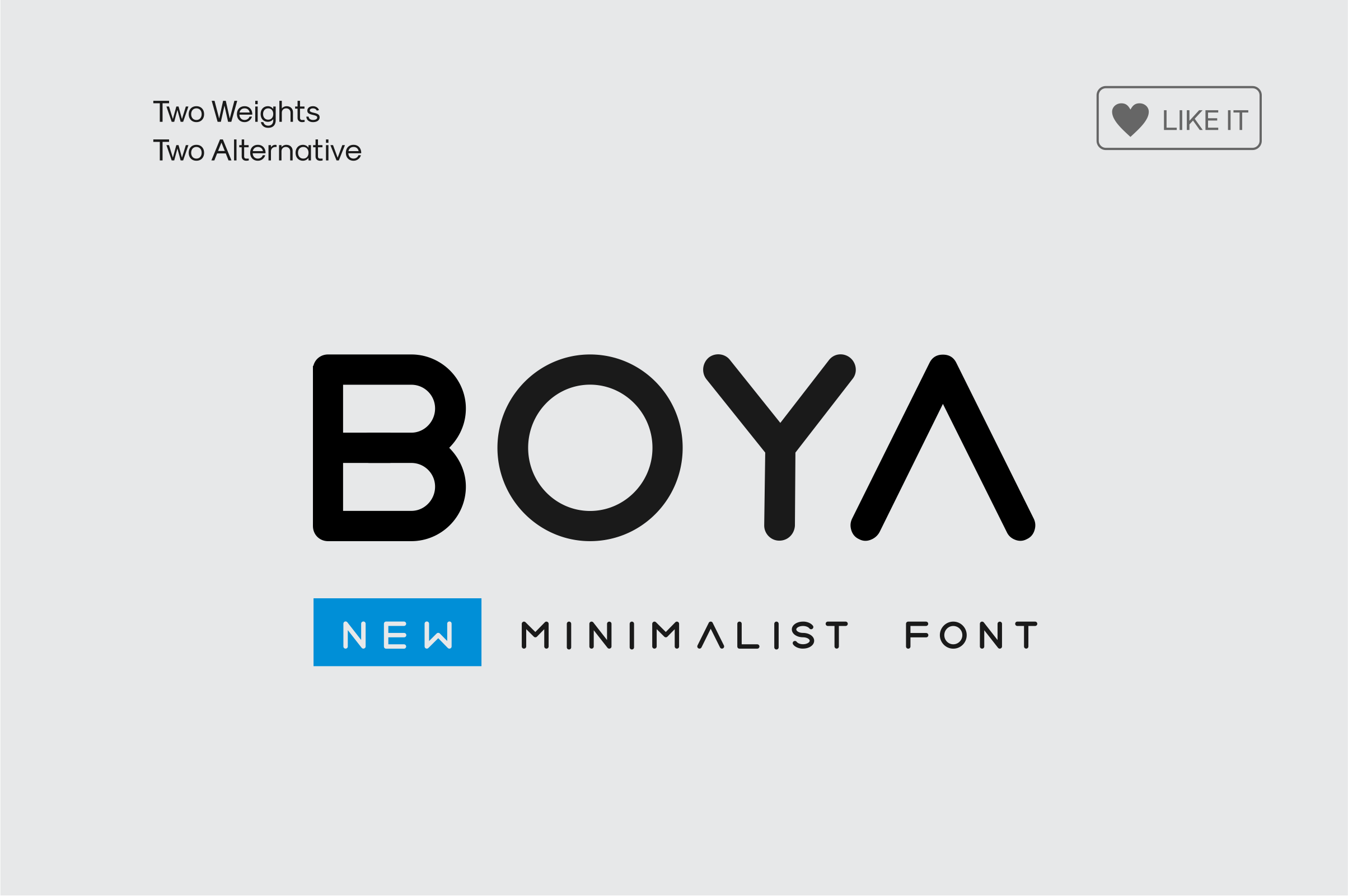
BOYA (Rounded Font )
new minimalism rounded typeface it’s perfect for namecard, poster, logo, magazine, cover, banner, tshirt and headers, logo and other any business related.